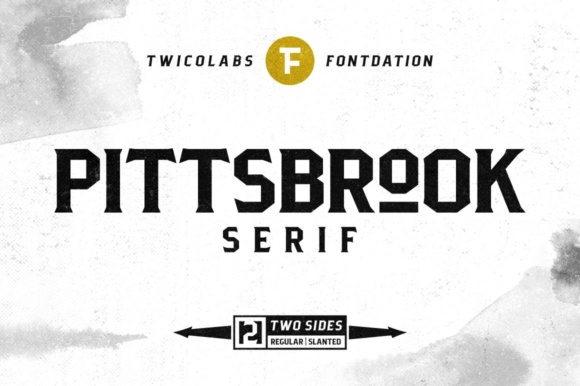
Pittsbrook Font
Introducing the Pittsbrook Font - A Touch of Timeless Charm and Modernity for Your Designs
In a world where visual impact reigns supreme, the Pittsbrook Font emerges as a captivating serif typeface, meticulously crafted by the renowned Fontdation, to elevate your designs with a touch of classicism and contemporary flair. Inspired by the enduring charm of vintage advertisements, Pittsbrook embodies the essence of nostalgia, bringing a sense of authenticity and timeless elegance to your creative endeavors.
Unleash the Power of Rigid Shapes:
Immerse yourself in the world of Pittsbrook Font, where rigid shapes command attention and evoke a sense of strength, sharpness, and blocky intrigue. Meticulously designed without a single curve in sight, Pittsbrook exudes an undeniable boldness that leaves an unforgettable impression. Embrace the raw power of this typeface and let it amplify the impact of your designs, leaving your audience captivated and compelled.
Suitability for Classic and Vintage Design Projects:
Harness the versatility of Pittsbrook Font, a typeface that seamlessly adapts to a myriad of classic and vintage design projects. Whether you're crafting elegant invitations, retro posters, captivating logos, or eye-catching social media graphics, Pittsbrook effortlessly blends with your creative vision. Its timeless appeal transcends trends, ensuring your designs stand the test of time, radiating an aura of sophistication and enduring charm.